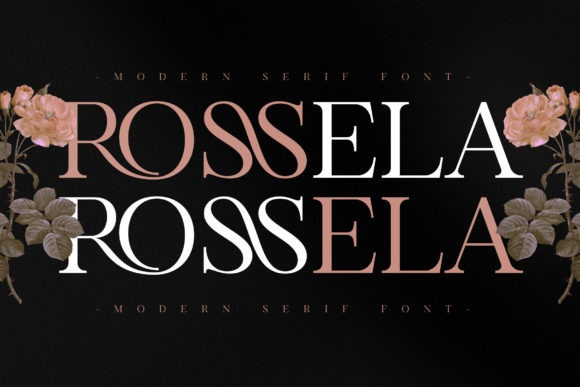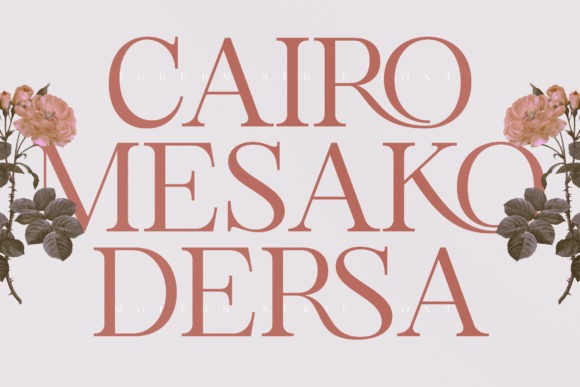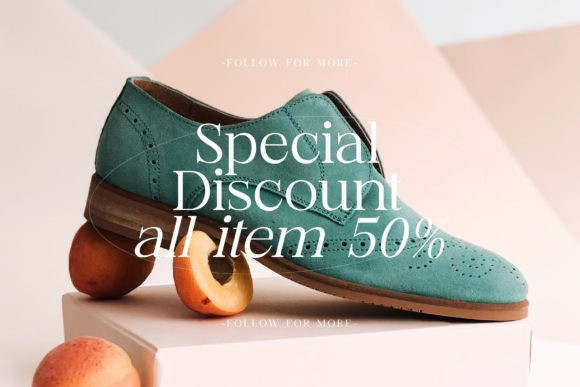
Rossela Font
Rossela is an elegant, distinct and stylish serif font.
This typeface is perfect for an elegant & luxury logo, book or movie title design, fashion brand, magazine, clothes, lettering, quotes, and so much more. It is also PUA encoded which means you can access all of the glyphs and swashes with ease.